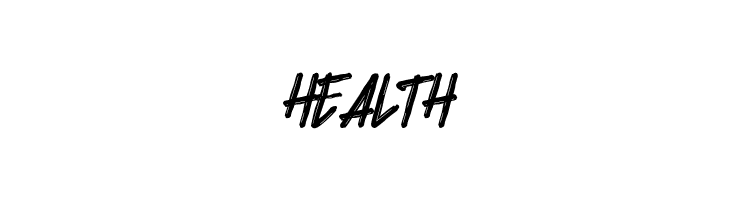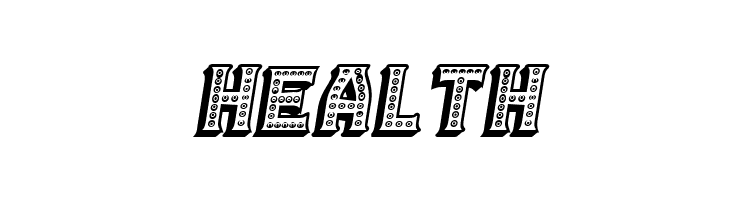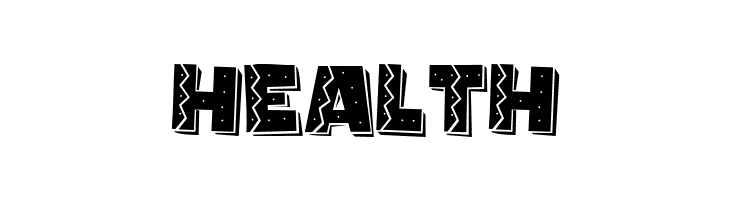
A bold, energetic script font with a dynamic, handwritten style.
A bold, 3D marquee-style font with an italic slant and decorative bulb patterns.
A bold, 3D filled marquee font with an italic slant, ideal for decorative and eye-catching designs.
A bold, 3D neon-style italic font with a retro vibe.
A bold, 3D neon-style font with layered outlines for a striking effect.
A bold, 3D neon-style font with layered outlines and rounded edges.
A bold, decorative font with intricate patterns, inspired by traditional Mexican design.
A bold, italic, and decorative font with intricate patterns and a dynamic style.
A bold, decorative font with intricate floral patterns in each character.
A bold, decorative font with intricate floral patterns inside each character.